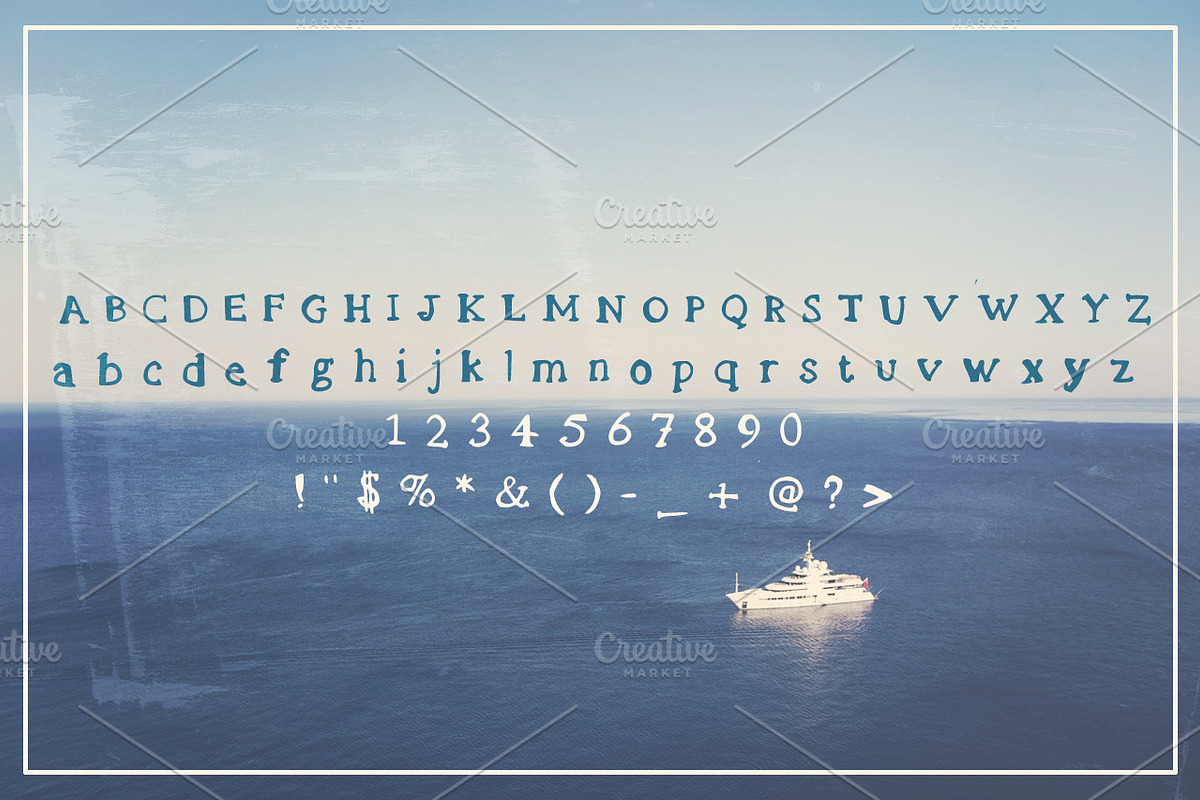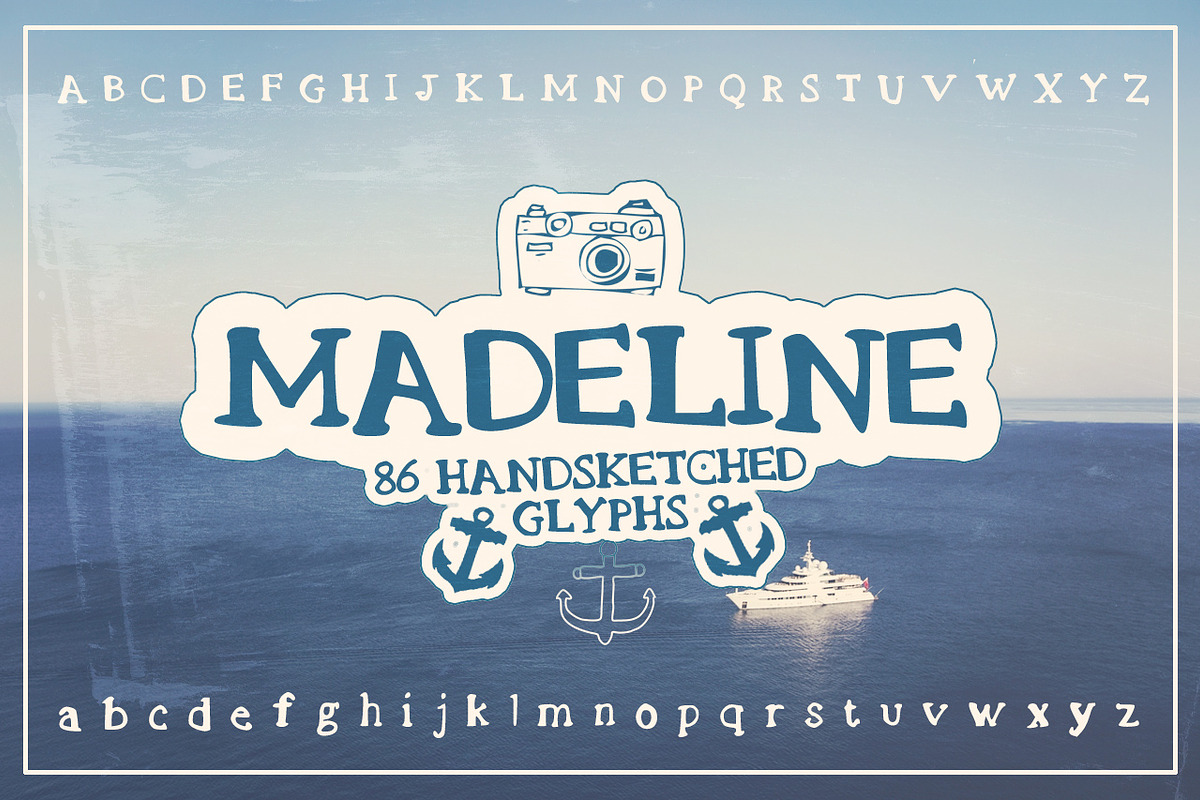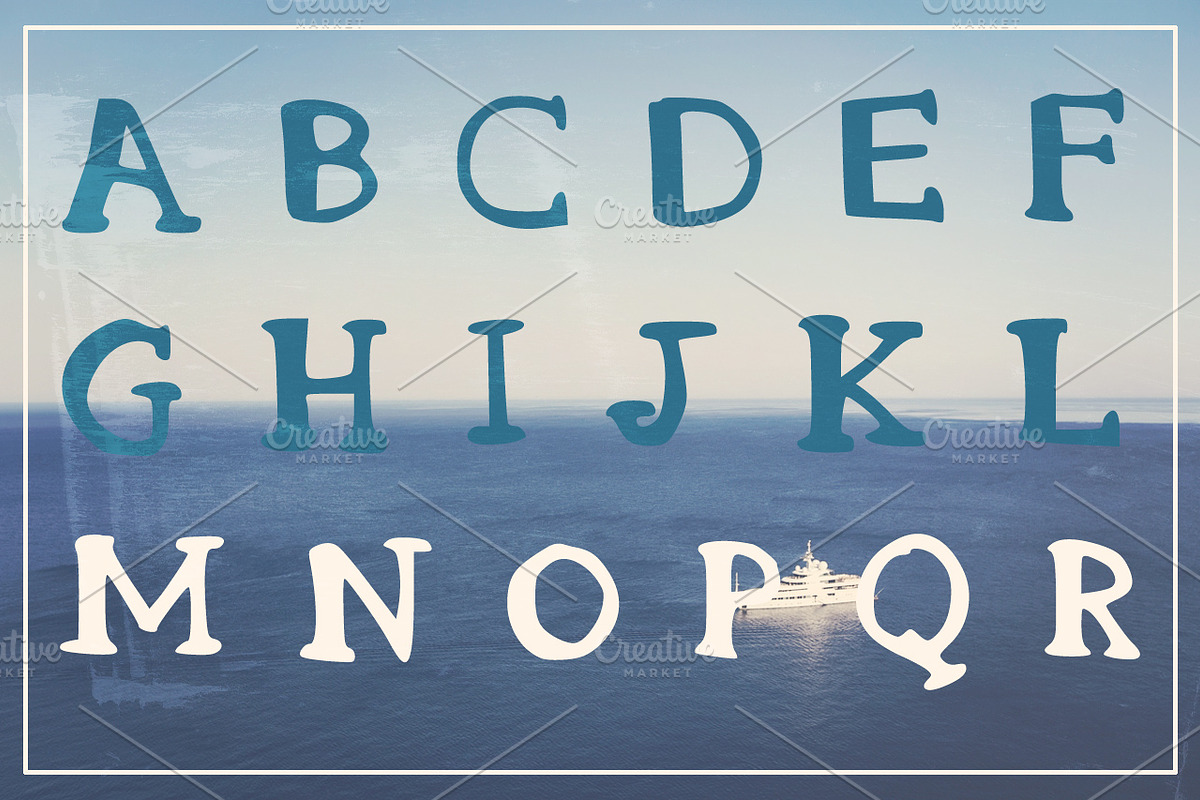
Madeline Handsketched Font
Madeline Handsketched Font by Layerform Design Co. is a font selected for branding, posters, packaging, typography.
Why Madeline Handsketched Font is worth a look
Madeline Handsketched Font by Layerform Design Co. fits naturally into Branding, posters, packaging, typography.